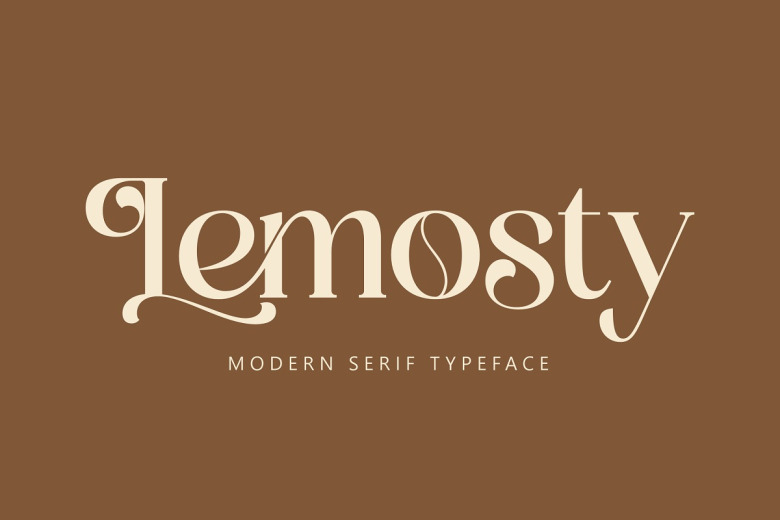
Lemosty Font
Lemosty is a Classy Serif Font Looking for a classy serif font for an Elegant and luxury logo, book or movie title design, fashion brand, magazine, clothes, lettering, quotes, and more.
Lemosty Serif Font